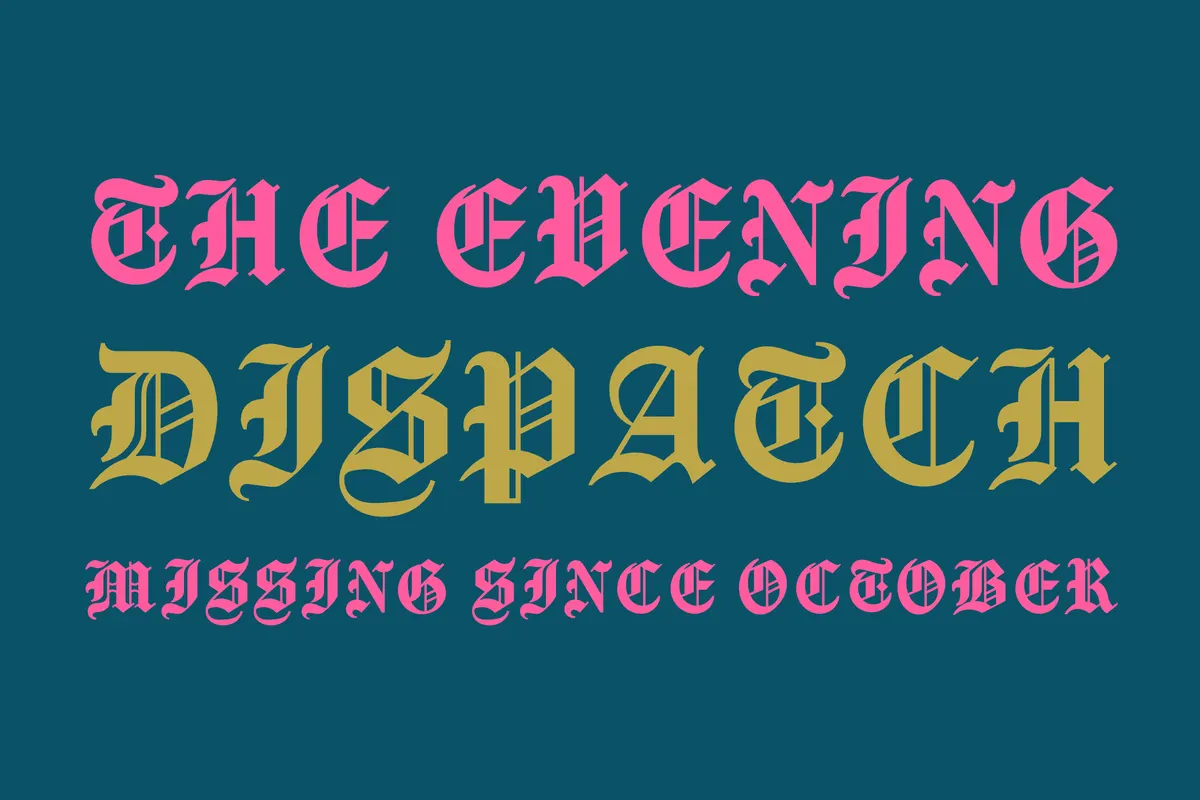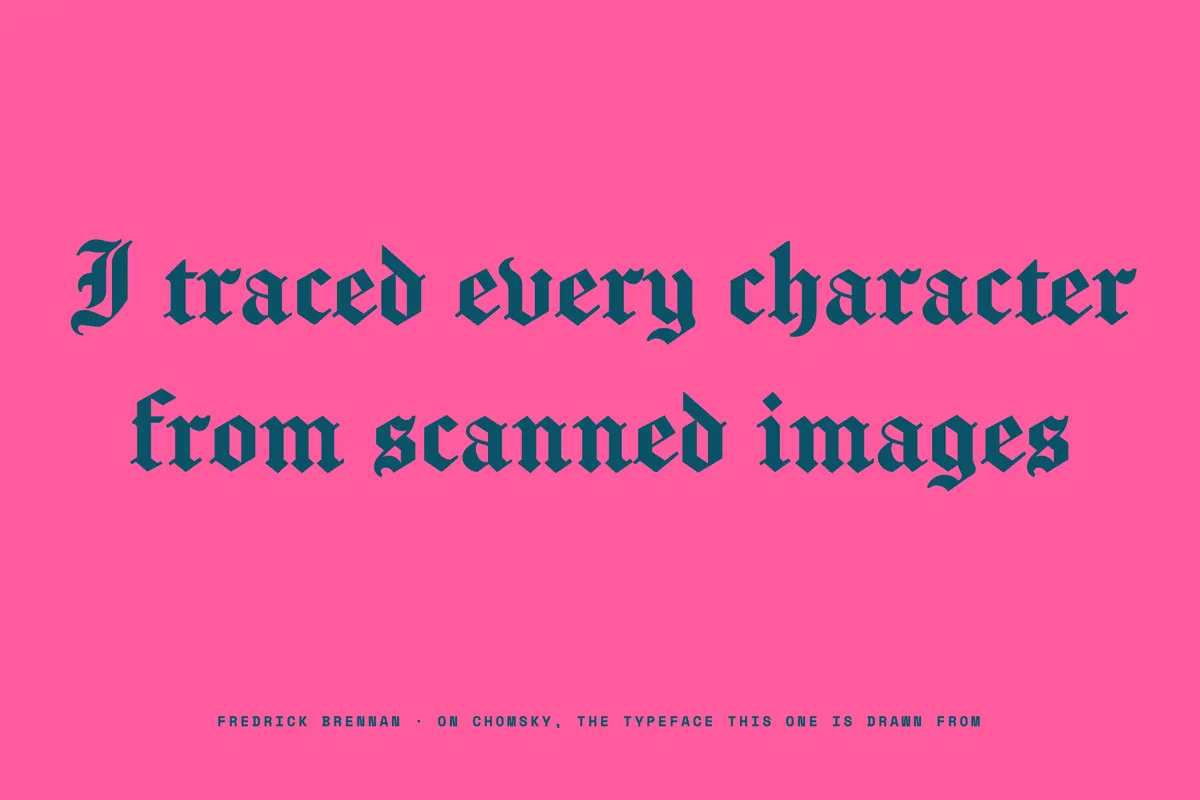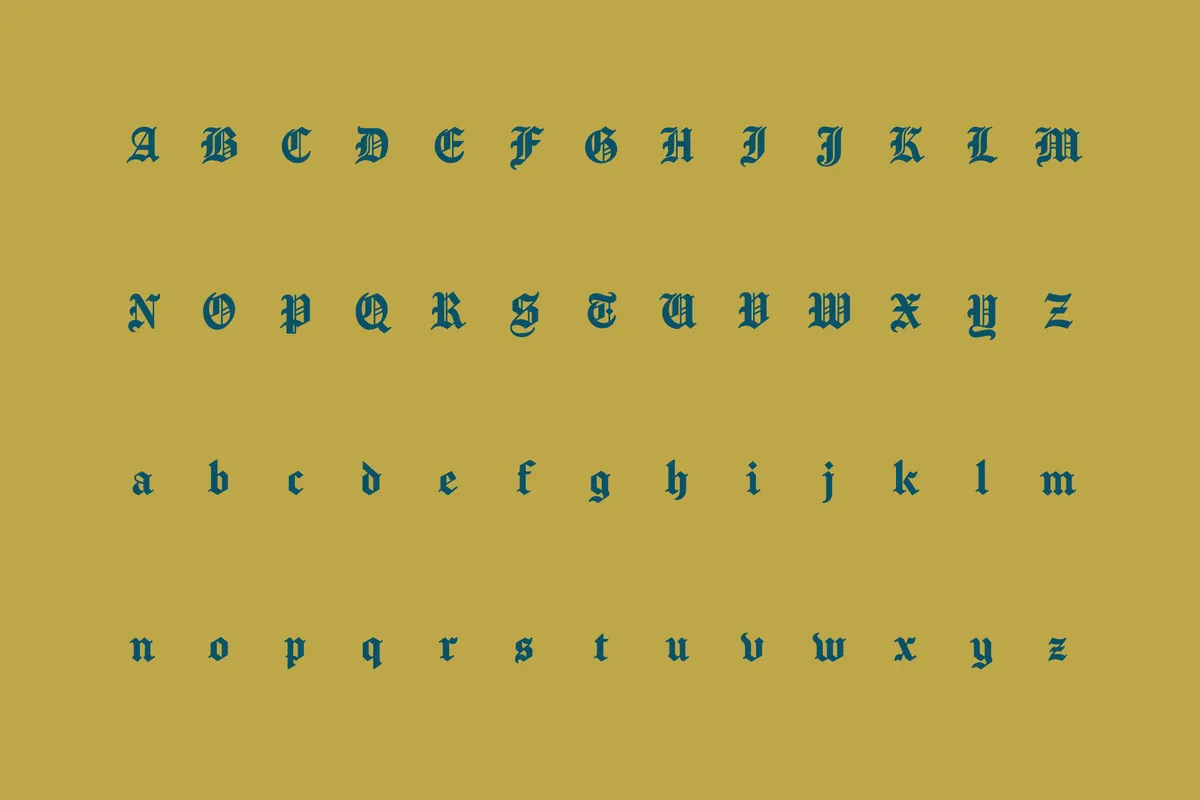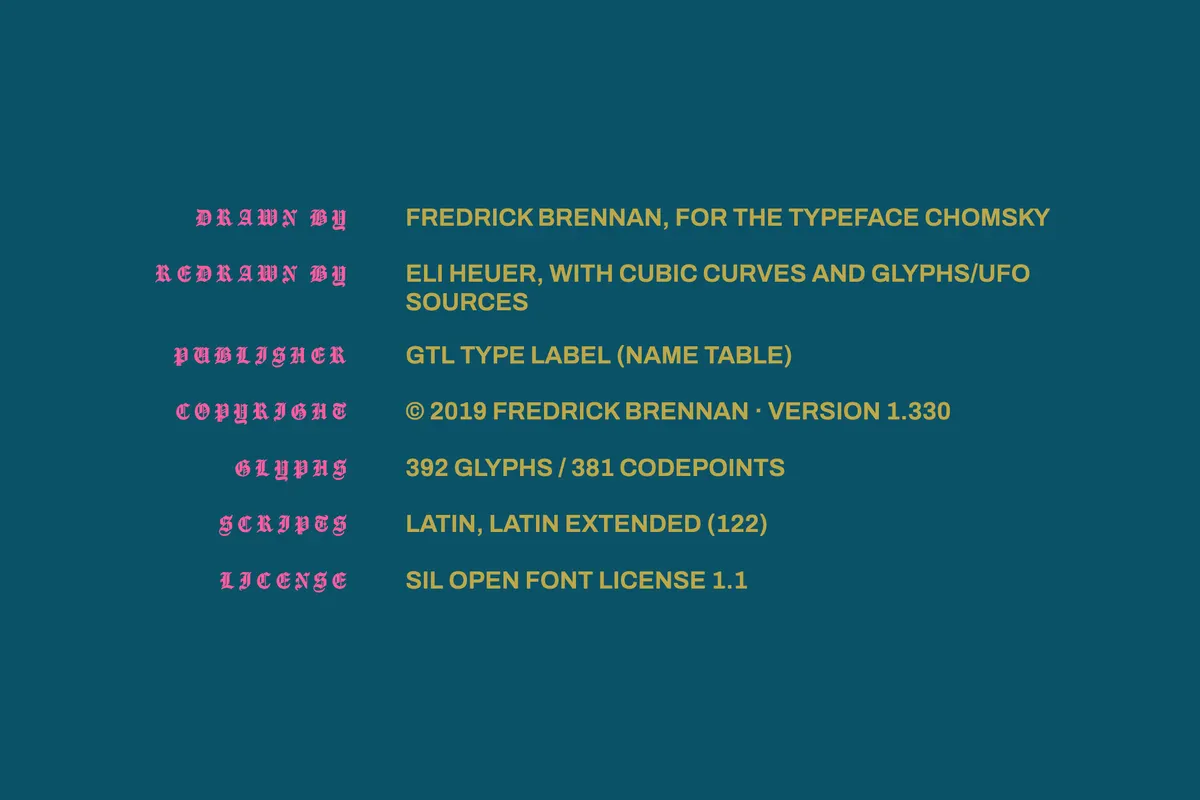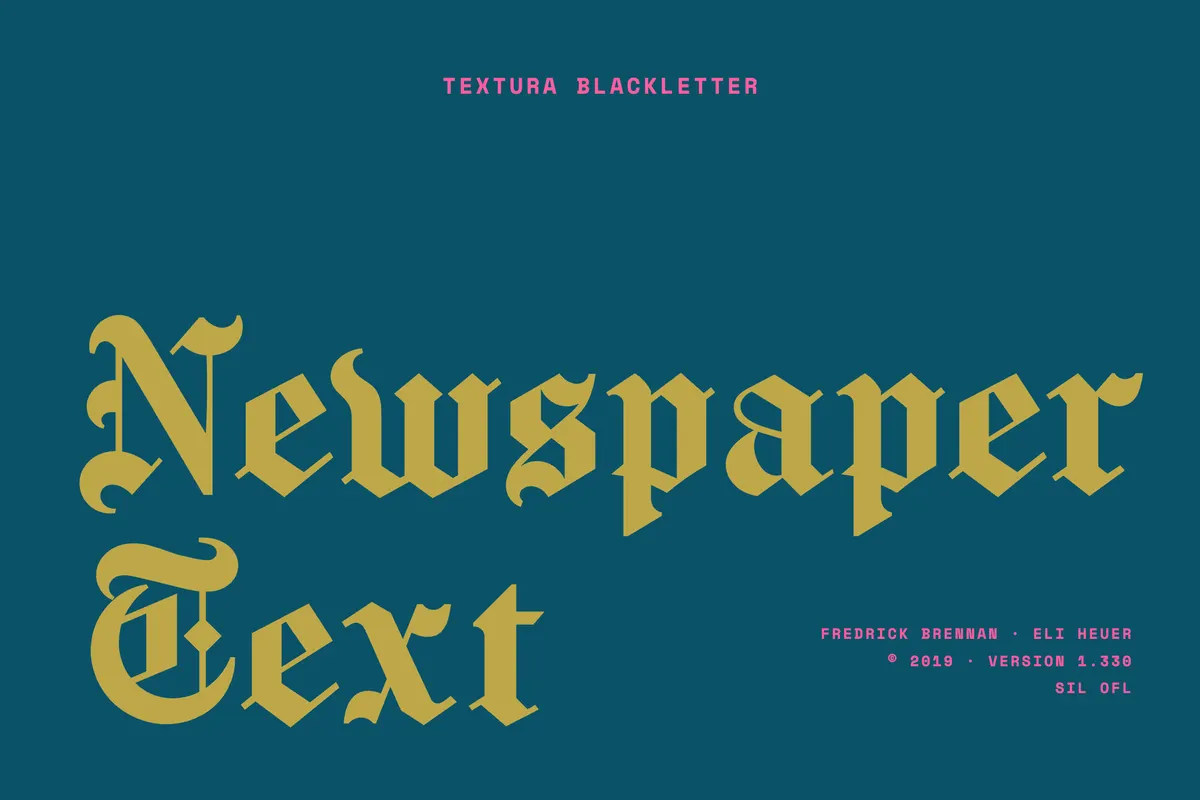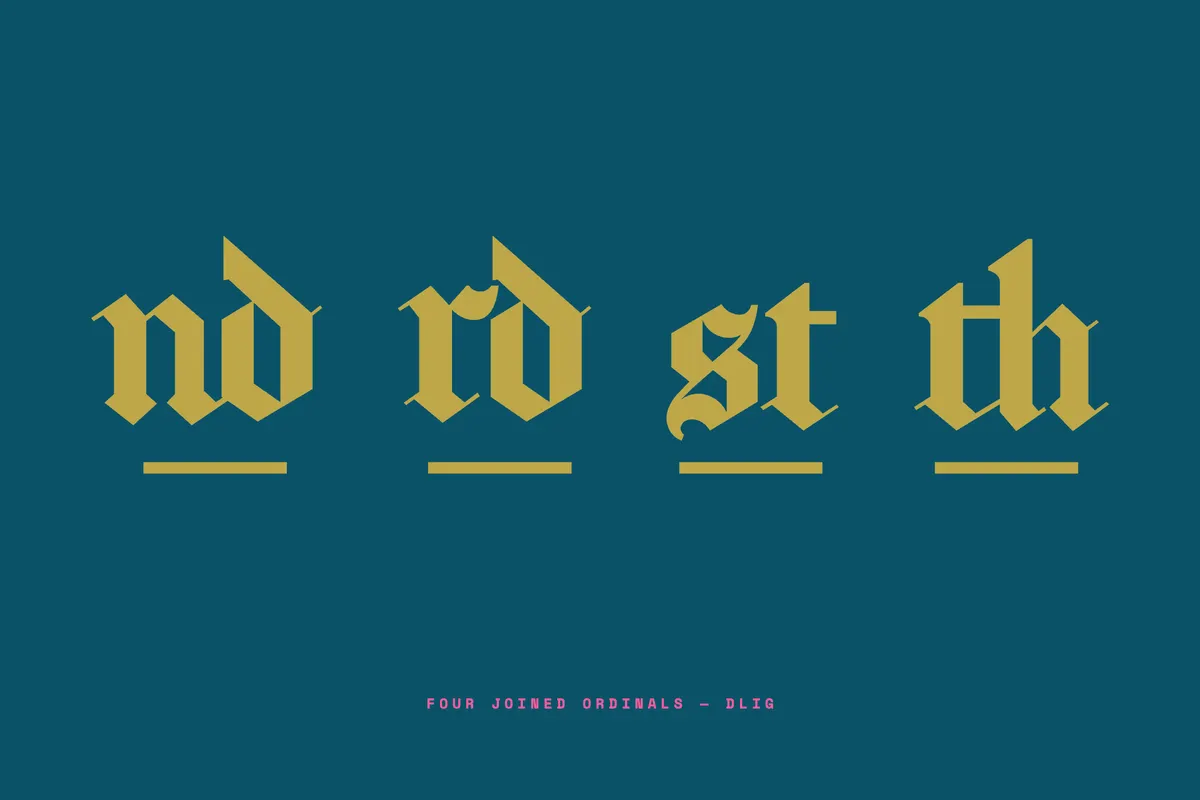
Newspaper Text - Free Textura Blackletter Font
Newspaper Text carries the dense textura of 19th-century broadsheet nameplates, the black letter that once ran above the fold of every morning paper. Its character set runs deeper than most display blackletters — five f-ligatures, four discretionary ordinal pairs, full superscripts and subscripts, and the double oblique hyphen historically used to break a word in broken script.
The font works well for parody mastheads, certificates, album covers, tavern menus, book covers, event programmes, museum graphics, and title sequences.
- uppercase and lowercase letters;
- numbers, punctuation, and symbols;
- ff, fi, fl, ffi, and ffl ligatures, plus discretionary nd, rd, st, and th pairs;
- full sets of superscripts and subscripts, and the double oblique hyphen at U+2E17;